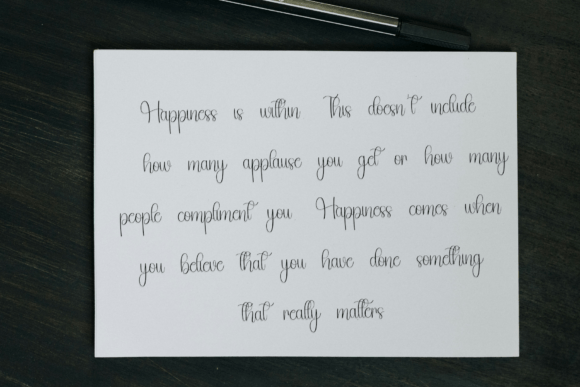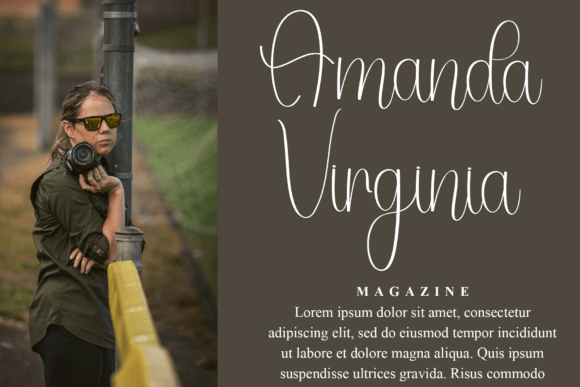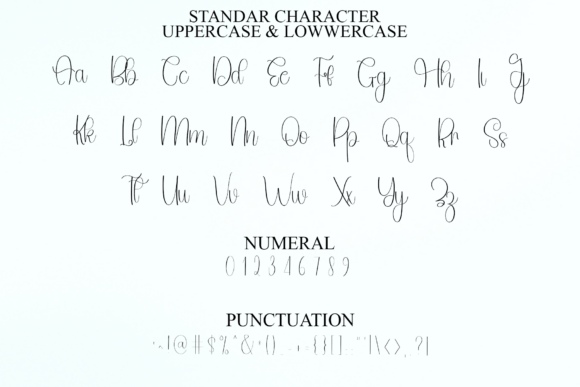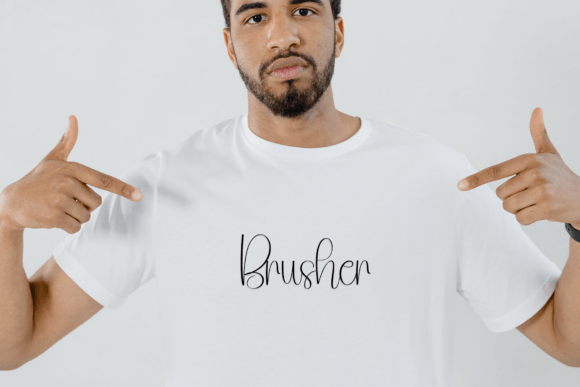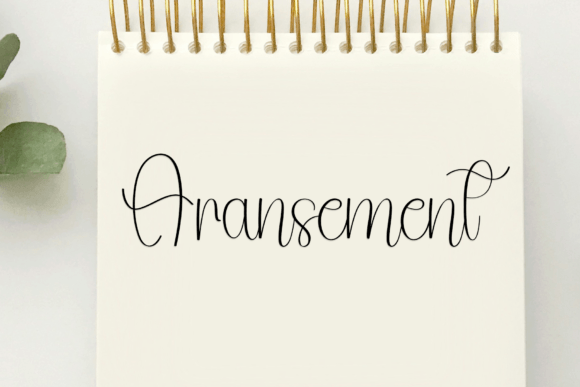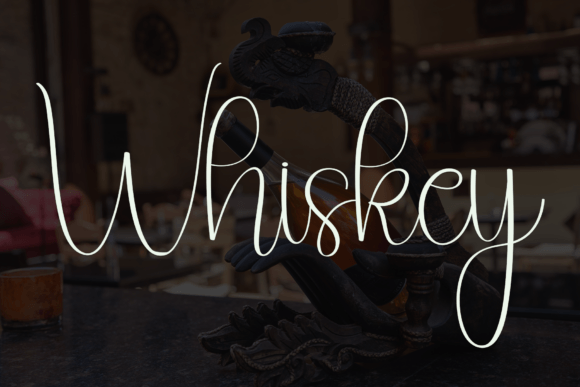
Adding a Touch of Personality to Your Design
There’s something magical about the moment when a design comes together – the perfect blend of colors, the ideal font, and a dash of creativity. For designers, this moment is what makes all the hard work worth it. But sometimes, no matter how hard we try, our designs can feel a bit… generic. That’s where a beautiful, handwritten font like Beauty Whisakey Font comes in.
This stylish font is designed to add a warm and personal touch to your writing, making your designs stand out in a crowded market. With its smooth curves and unique style, Beauty Whisakey Font is perfect for invitations, quotes, and any design that needs a creative flair. For designers, this font is a valuable tool that can elevate their work and give it a professional, yet personal, touch.
Beauty Whiskey Font Key Features
- Font Family: A beautiful and elegant script font, ideal for designs that require a touch of sophistication and luxury.
- Character Set: Includes a wide range of characters, including uppercase and lowercase letters, numbers, and punctuation marks, making it suitable for a variety of applications.
- Unique Characteristics: Features a unique whiskey-inspired design, with subtle curves and flourishes that evoke the elegance of fine spirits.
Review of Beauty Whisakey Font
I recently had the chance to work with the Beauty Whisakey Font, and I must say it’s an interesting addition to my design toolkit. Here are my thoughts.
- The font’s unique aesthetic is certainly eye-catching. It’s perfect for adding a touch of elegance and sophistication to a design.
- The font’s versatility shines through in its ability to work well in both digital and print formats.
- The font’s range of weights and styles makes it easy to customize and adapt to different design needs.
- The font’s readability can be a concern in smaller text sizes, making it less suitable for body text.
- The font’s aesthetic may be too ornate for some designers’ tastes, which can limit its appeal in certain design contexts.
While the Beauty Whisakey Font has its limitations, I appreciate its unique character and versatility. It’s a solid choice for designers looking to add a touch of luxury and elegance to their designs. However, it may not be the best fit for every project, and designers should carefully consider the font’s limitations before making a decision.
Tips for Getting the Most Out of Beauty Whisakey Font
Use the Beauty Whisakey Font for creative projects, such as invitations, posters, and social media graphics.
Combine the Beauty Whisakey Font with other fonts and design elements to create a unique and eye-catching design.
Experiment with different font sizes, colors, and styles to achieve the desired effect.
Use the Beauty Whisakey Font for:
1. Creative projects, such as invitations, posters, and social media graphics.